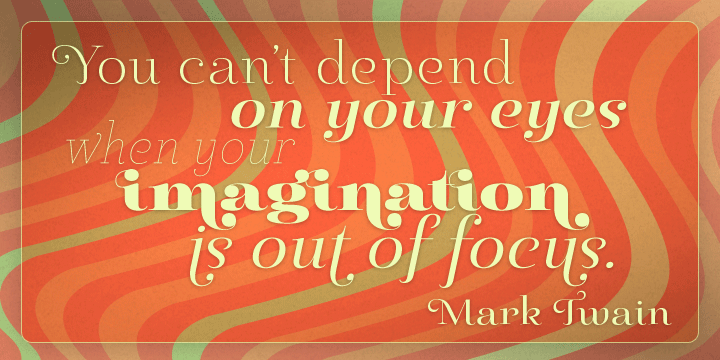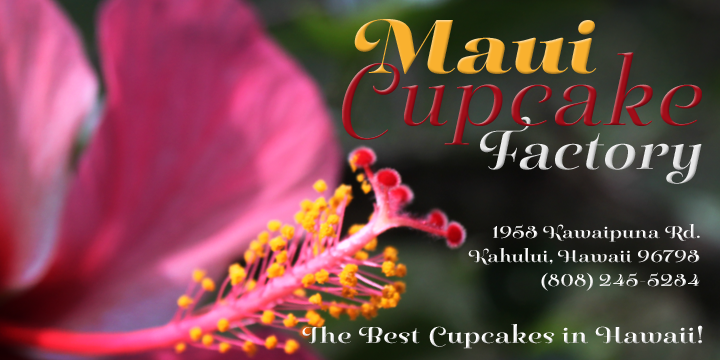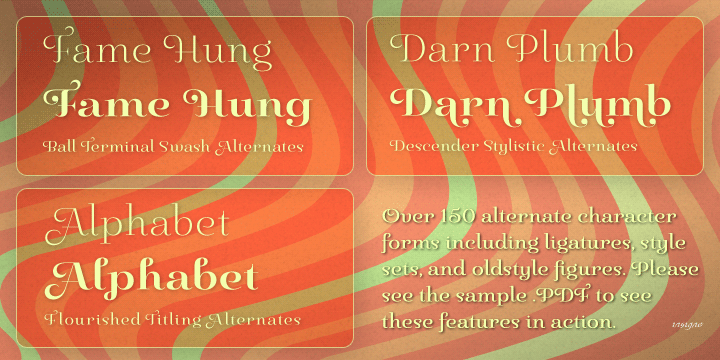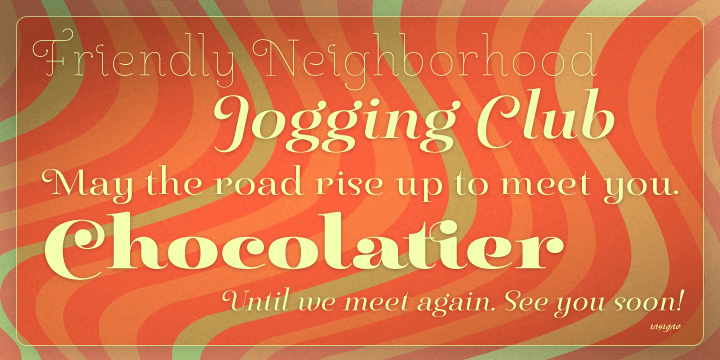
Pauline Didone is a retro and display serif font family. This typeface has ten styles and was published by Insigne Design.
An Art Deco and script inspired typeface for “modern” times, Pauline Didone is a full type family with a unique and flavorful design. It has a sense of femininity and naïveté that comes from its predecessor, Pauline. It’s a typeface useful for short bits of copy, logotypes and interesting titling. This typeface family of 10 different fonts includes 5 weights and their italics and a wide range of OpenType alternates.
The original Pauline was inspired by and has a strong influence from retro scripts. The typeface is geometric, formed with deliberate contrasting brush strokes and a ostentatious flair. Pauline Didone’s high contrast strokes give it a very interesting look that is up to date with latest design trends and very useful for today’s design environment. Pauline Didone pairs nicely with the original sans-serif Pauline.
The typeface family also includes a full array of alternate forms, including over 150 alternate characters. These alternates can be accessed by activating OpenType features and style sets. In order to use these features, you will need a program with advanced typography capabilities such as the Adobe Suite or Quark. These alternates also include a group of ball terminals that can be accessed under the swash alternates.